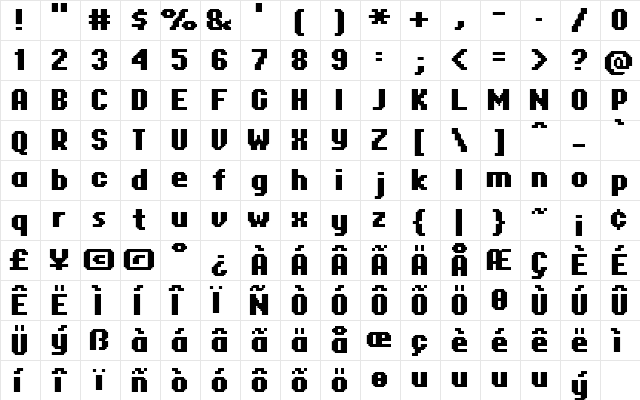
FFF Corporate Bold Regular
Design Context for FFF Corporate Bold Typeface
FFF Corporate Bold is a composed and adaptable typeface that performs quietly and consistently across a wide range of design contexts. The heavy weight commands attention and anchors typographic hierarchies.